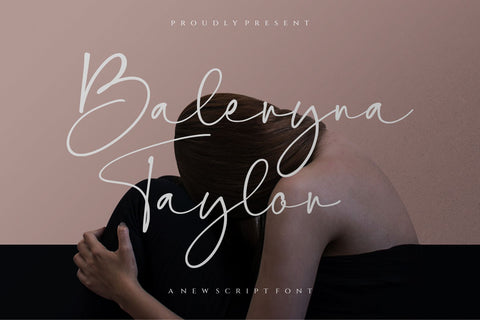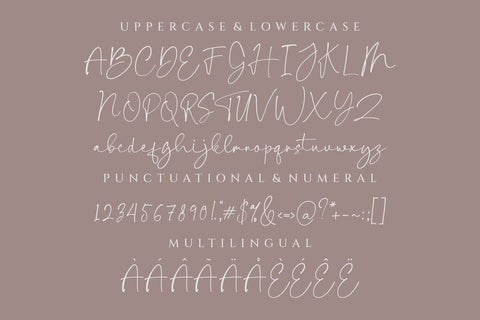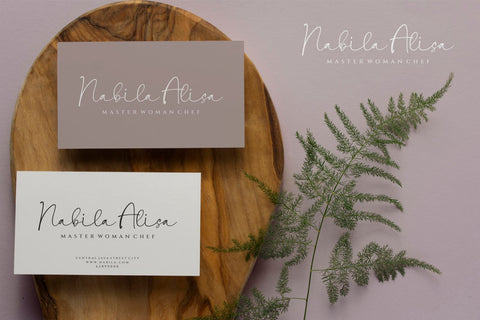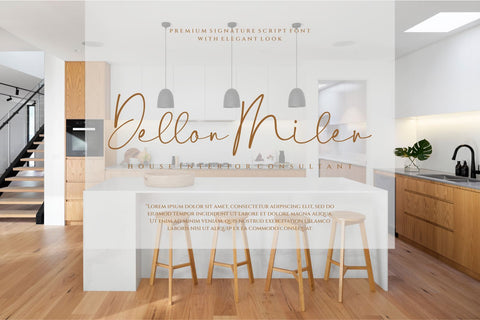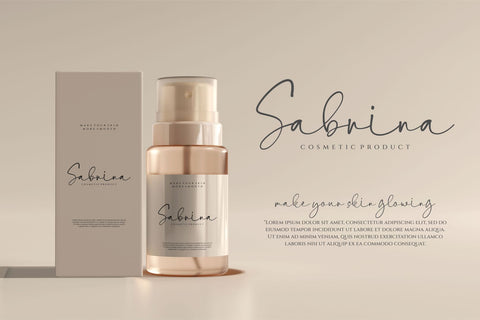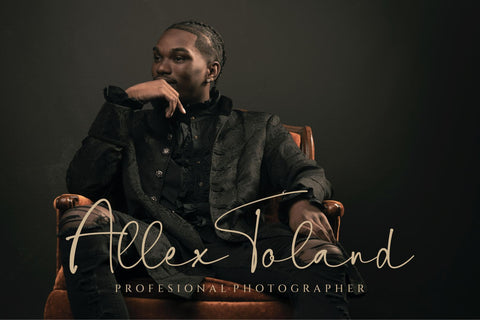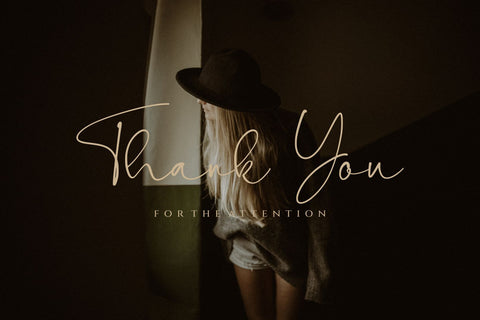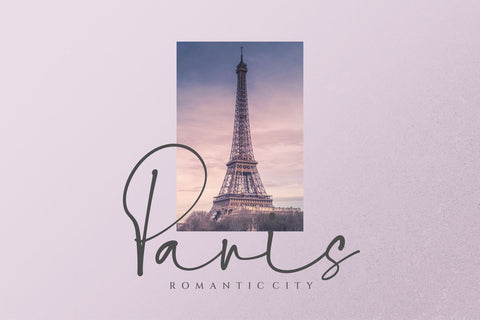
Baleryna taylor script font ,signature font ,Handwritten
Baleryna taylor is a beautiful signature font for a variety of designs.Baleryna taylor can be used for products such as handcraft, product packaging, quotes, product design, craftsmen, lanels, photography, watermarks, logos & branding. Everything can be accessed using software that supports Opentype, such as Adobe Indesign, Adobe CS IIustrator, Adobe Photoshop CC, and Corel Draw.